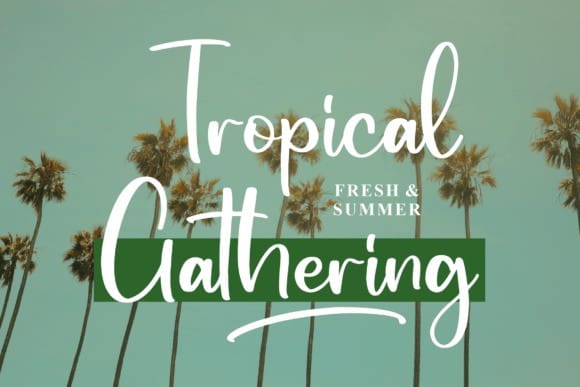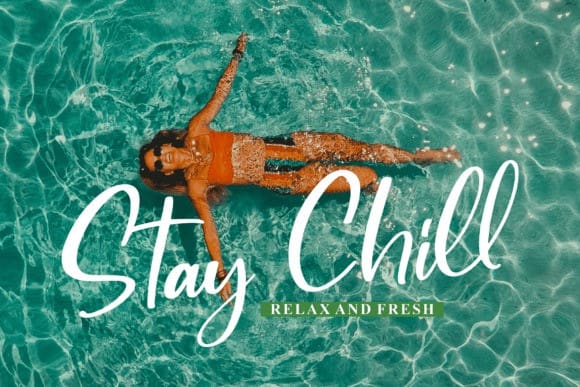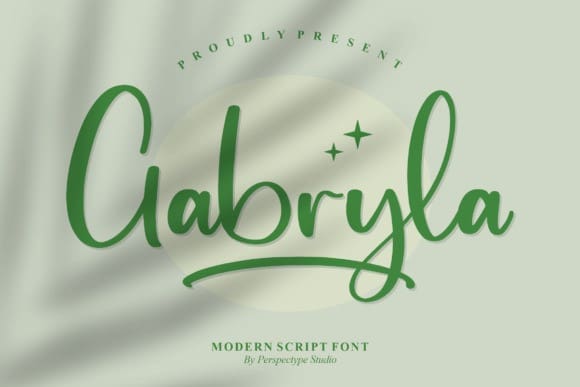
Gabryla Script Font
Gabryla Script Font is a modern handwritten font perfect for logos, branding projects, homeware designs, product packaging, mugs, quotes, posters, shopping bags, T-shirts, book covers, name cards, invitation cards, greeting cards, labels, photography, watermarks, special events, or any project you wish to create!